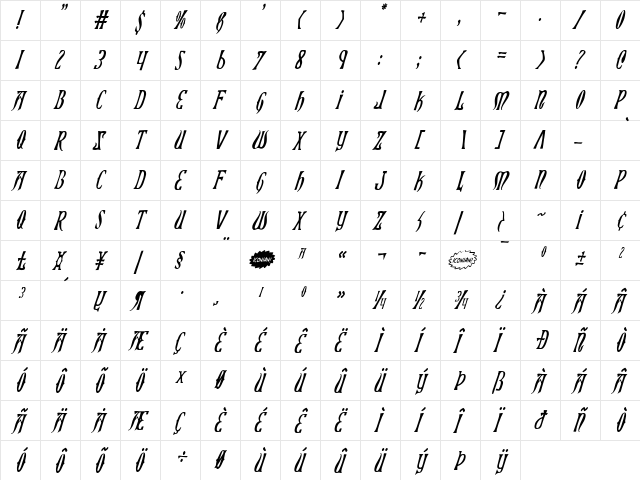
Xiphos Condensed Italic Condensed Italic
Design Context for Xiphos Condensed Italic Typeface
Xiphos Condensed Italic is a composed and adaptable typeface that performs quietly and consistently across a wide range of design contexts. The dynamic lean of this cut emphasises speed and emphasis in any layout. The condensed width makes it efficient for tight spaces without sacrificing legibility.
Pro Tip: Use Xiphos Condensed Italic for emphasis, pull quotes, and subheadings where its slanted energy can add rhythm to the layout.